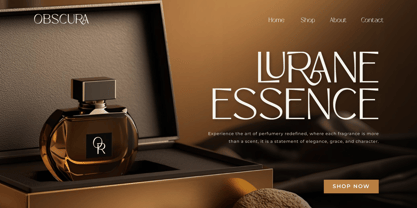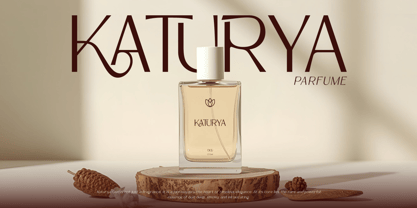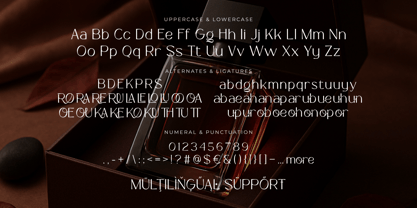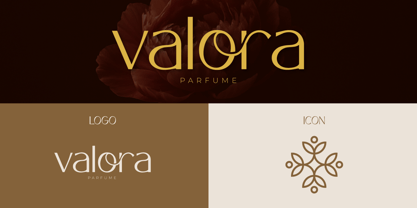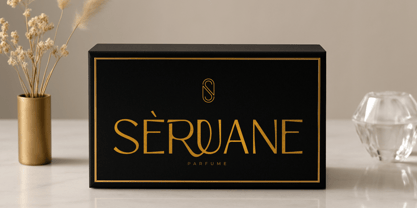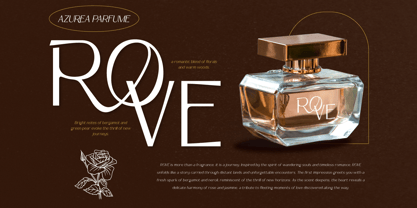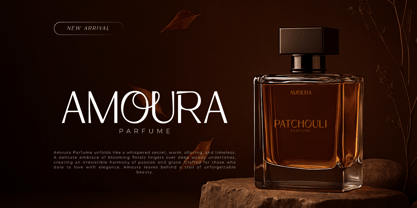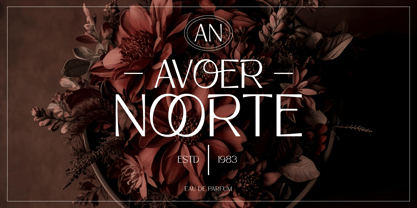
Niravaka – Modern Stylish Font is a refined and contemporary sans typeface designed with elegant curves and sophisticated letterforms. Its clean structure combined with subtle decorative details makes it perfect for projects that require a balance of modernity and class. Inspired by the aesthetics of luxury branding and high-end packaging, Niravaka captures the essence of timeless style with a fresh, modern touch.
This font includes both Regular and Italic styles, featuring alternates, ligatures, numerals, punctuation, and full multilingual support. Each character is crafted with precision, offering versatility for use in titles, logotypes, product packaging, or editorial layouts. The flowing ligatures add a graceful rhythm, while the sharp geometric foundation ensures clarity and professionalism.
Niravaka works beautifully for perfume labels, cosmetic branding, product packaging, visual identity systems, posters, invitations, or any creative project that needs a modern yet elegant typographic statement. It’s a stylish and sophisticated typeface designed to leave a lasting impression and elevate your brand presentation.
Niravaka